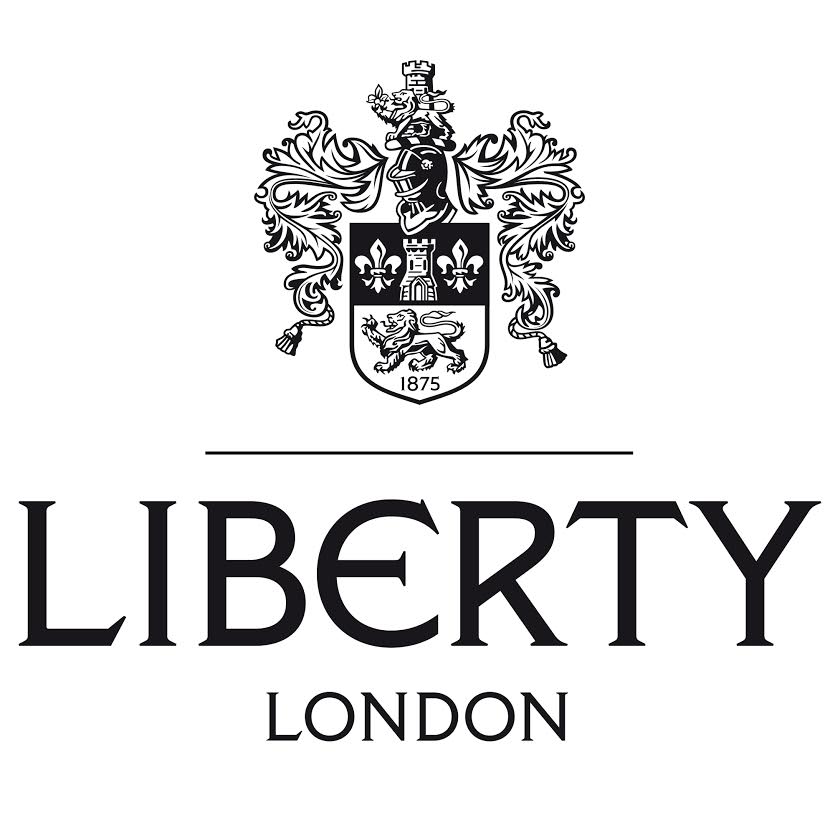
Liberty London Font
Fonts in UseLiberty London is a department store located in London, UK, which was founded in 1875 by Arthur Lasenby Liberty. It is located on Regent Street in the West End of Central London known for its floral and graphic prints and offering luxury goods such as fragrances, jewelry, accessories, and stationery.
The Liberty store logo uses a font called Liberty EF, an inscribed serif font designed by William T. Sniffi and released in 1927, which can be previewed and purchased here.